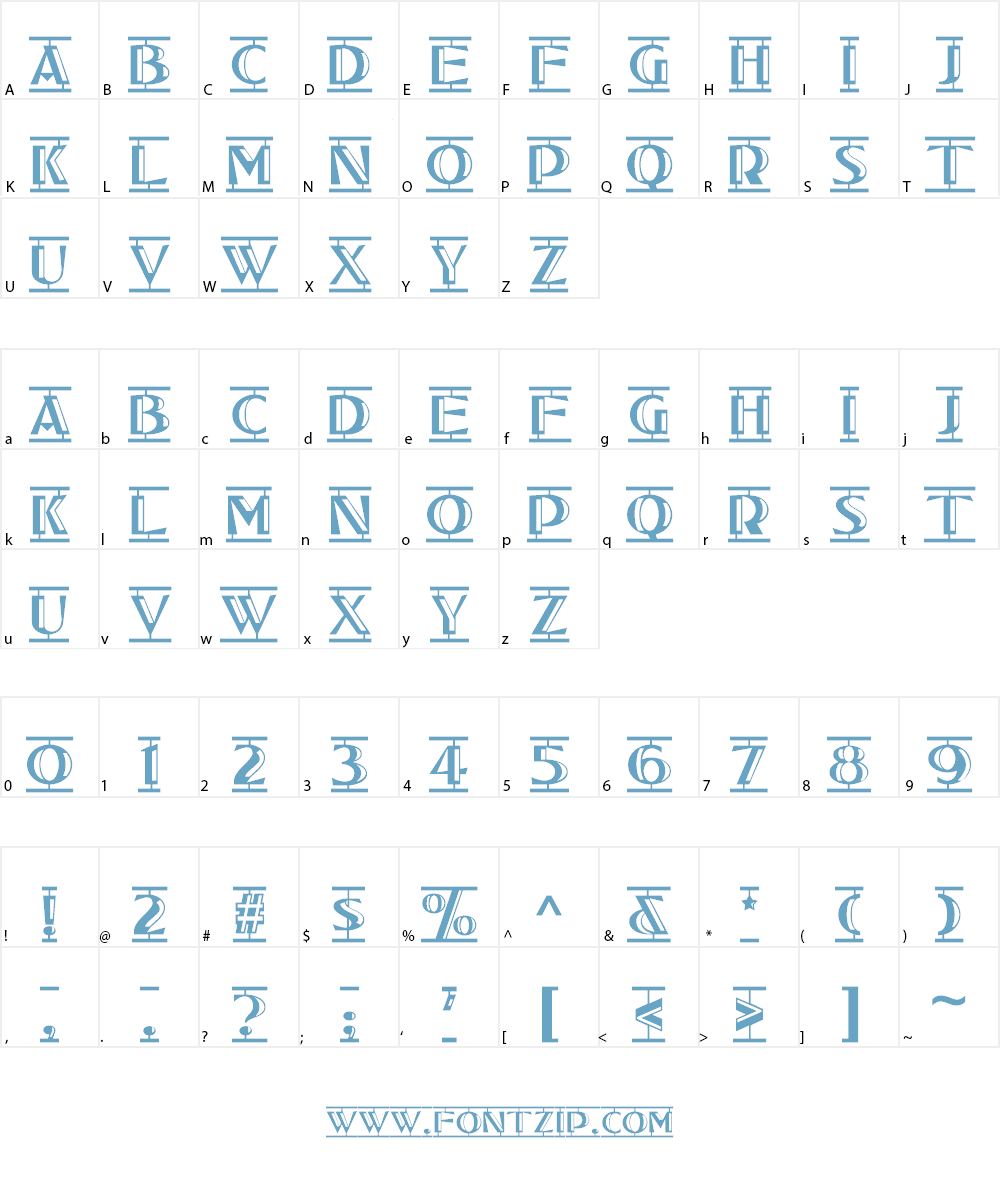
A luggage sticker from the Pioneer Hotel in (where else?) Tucson, Arizona, provided the inspiration for this snappy inline face with strong architectural appeal. Use the underscore (_) character as a space if you want to continue the top and bottom bars.